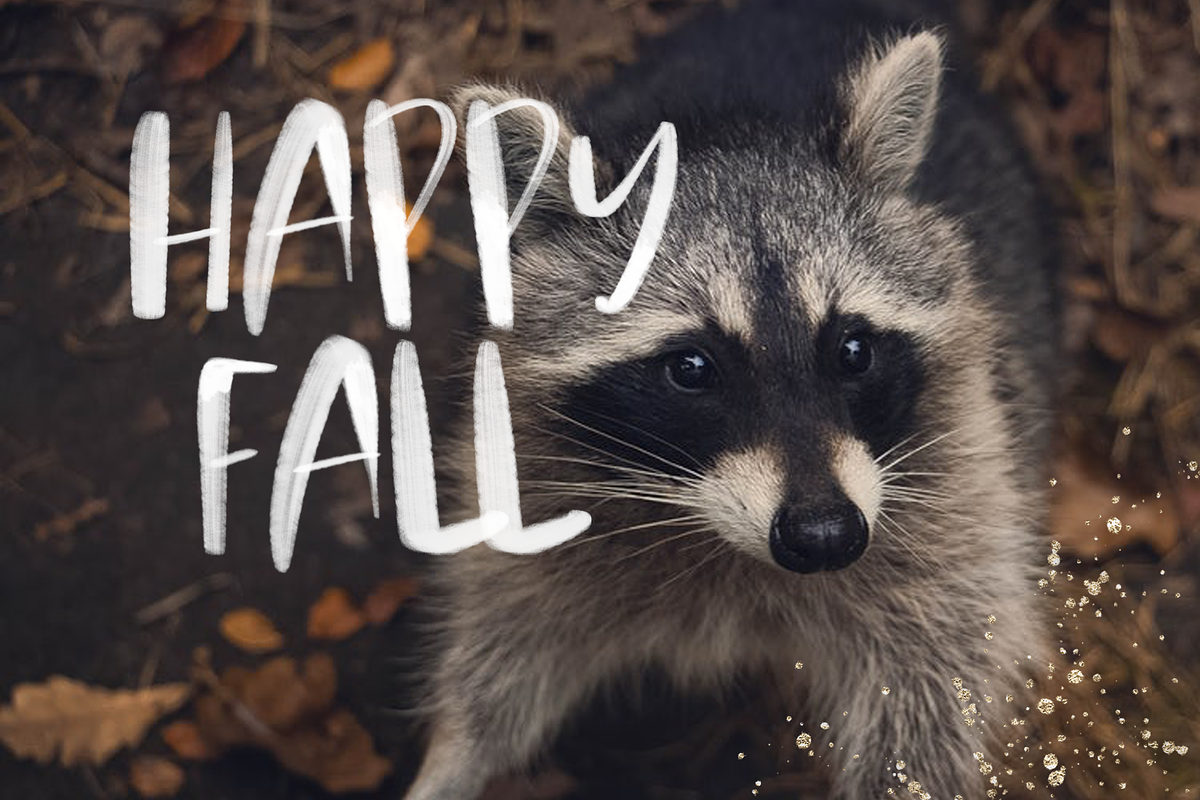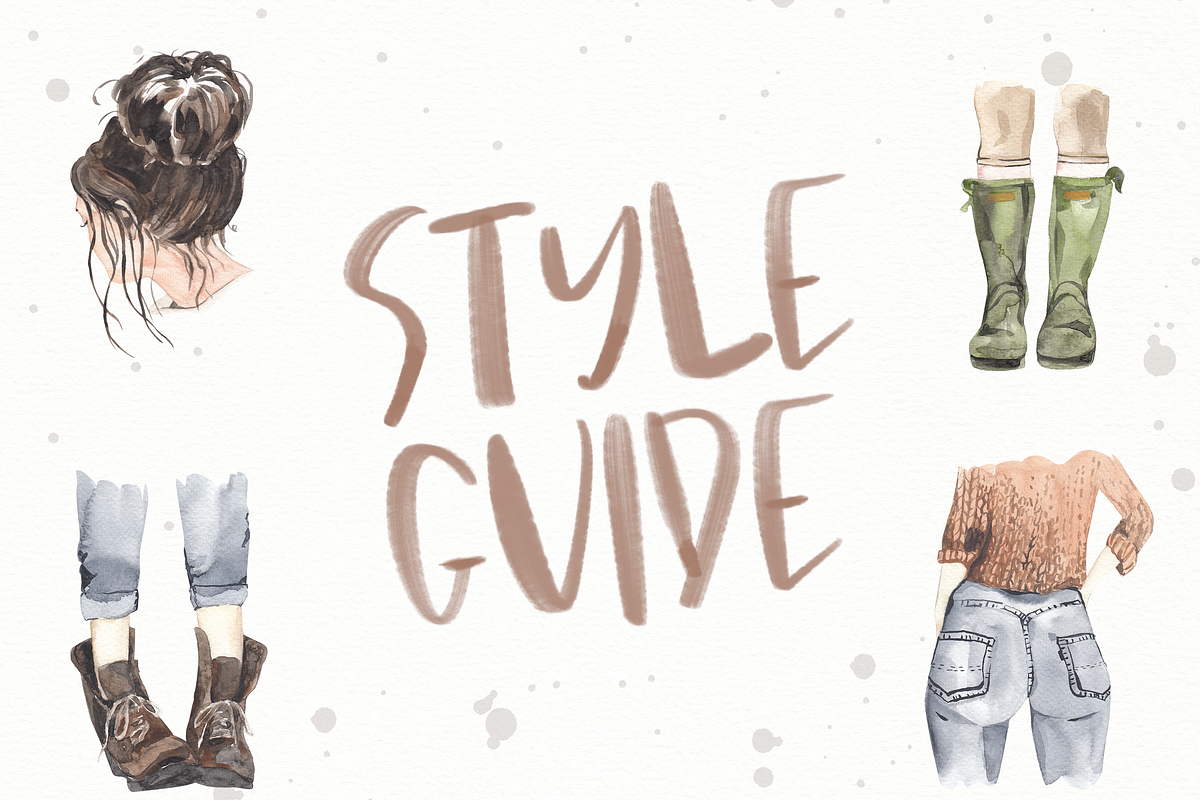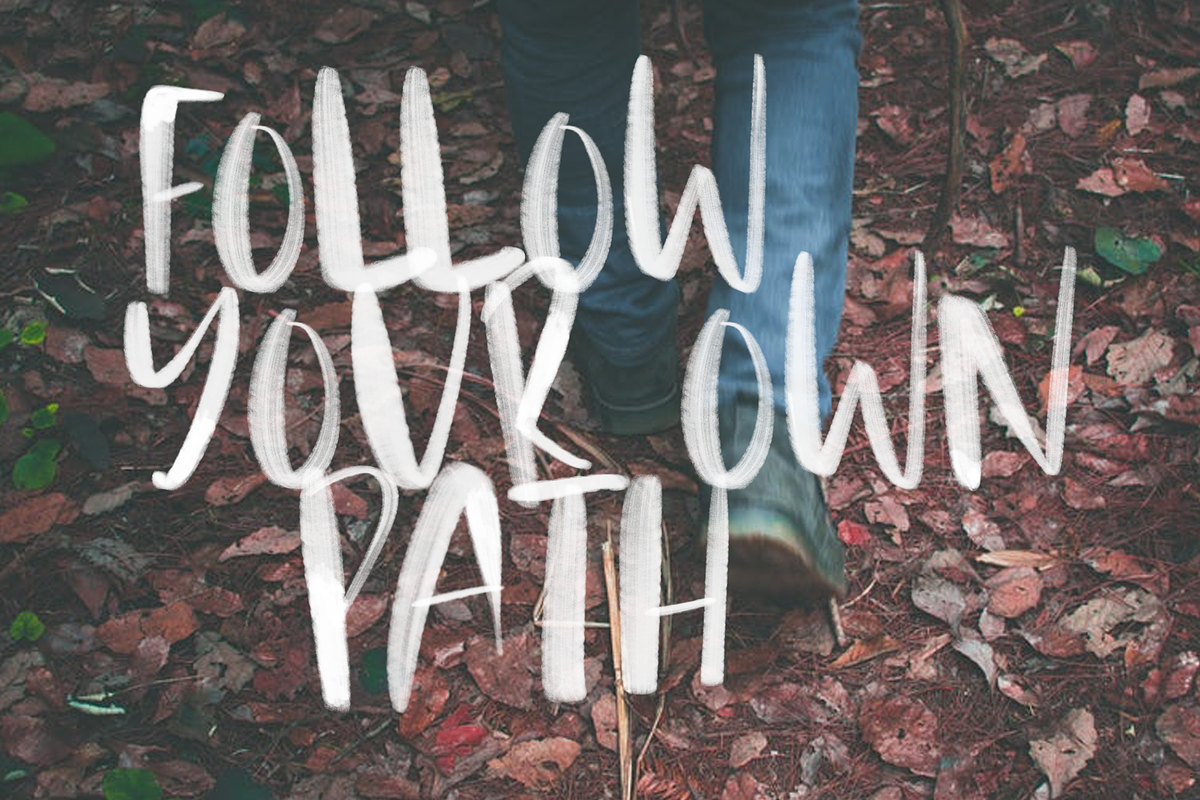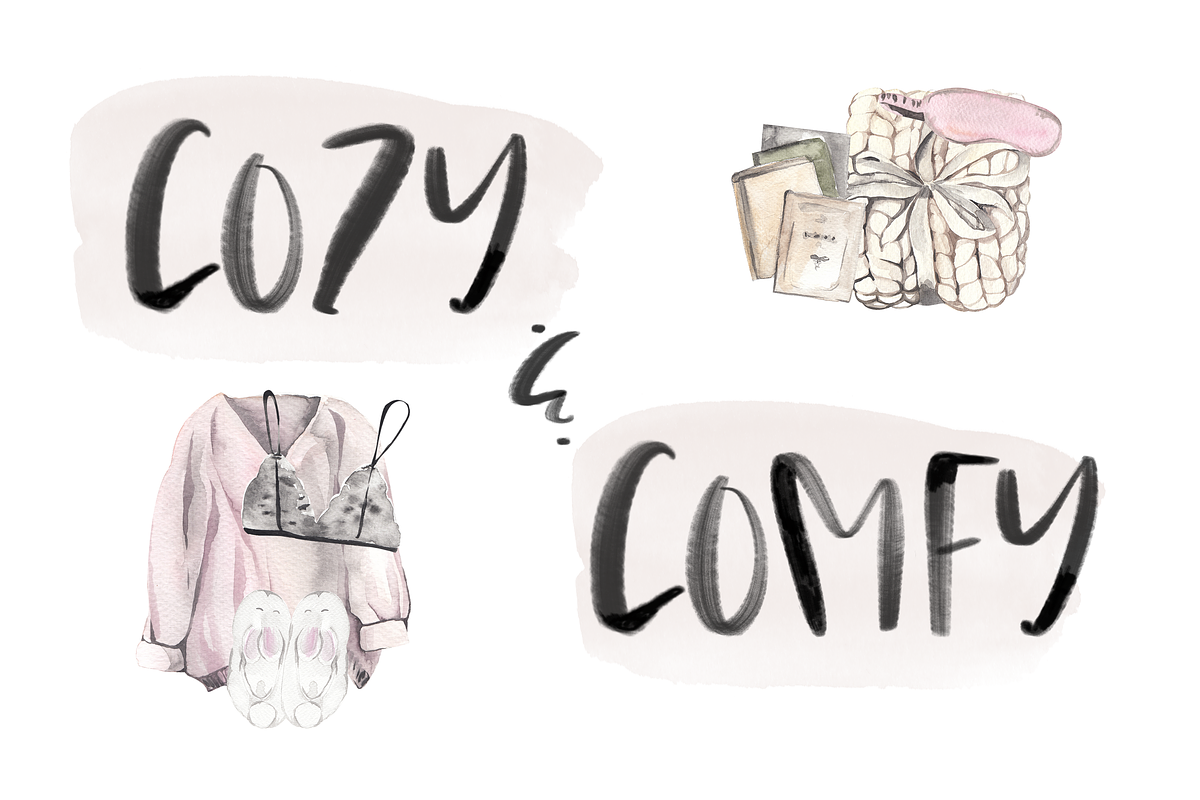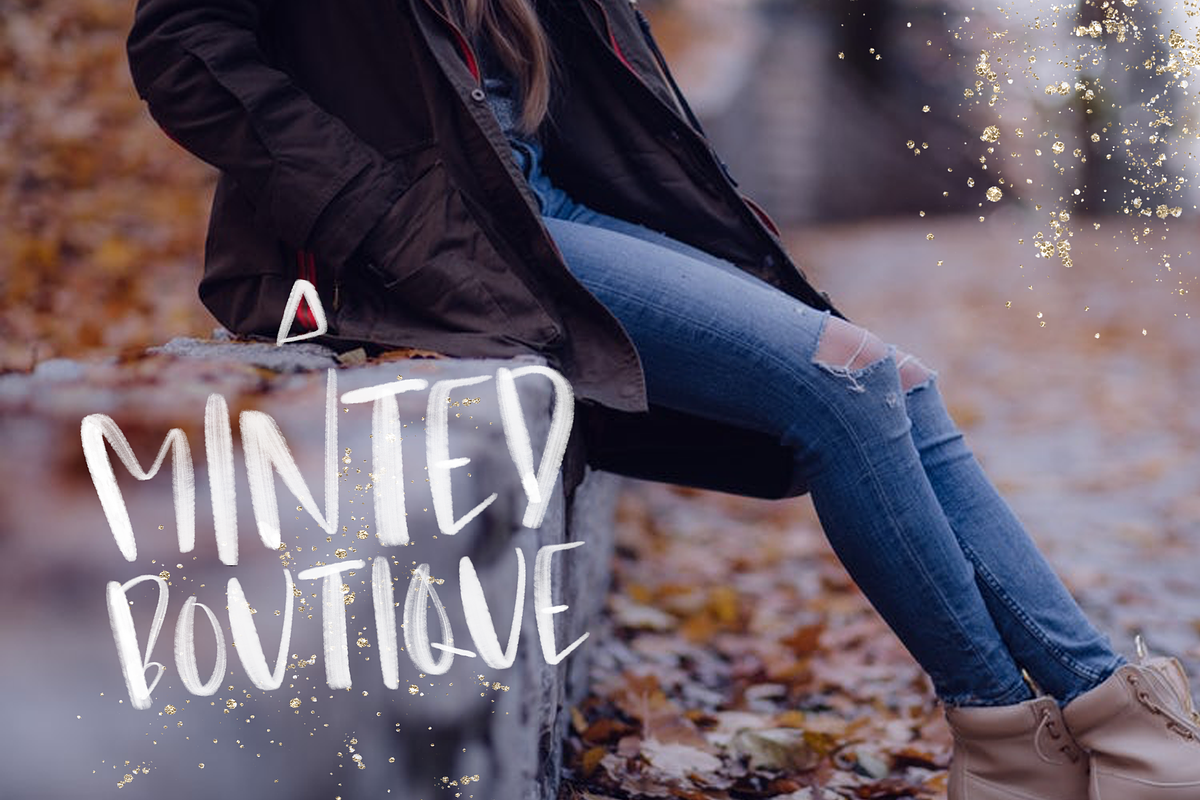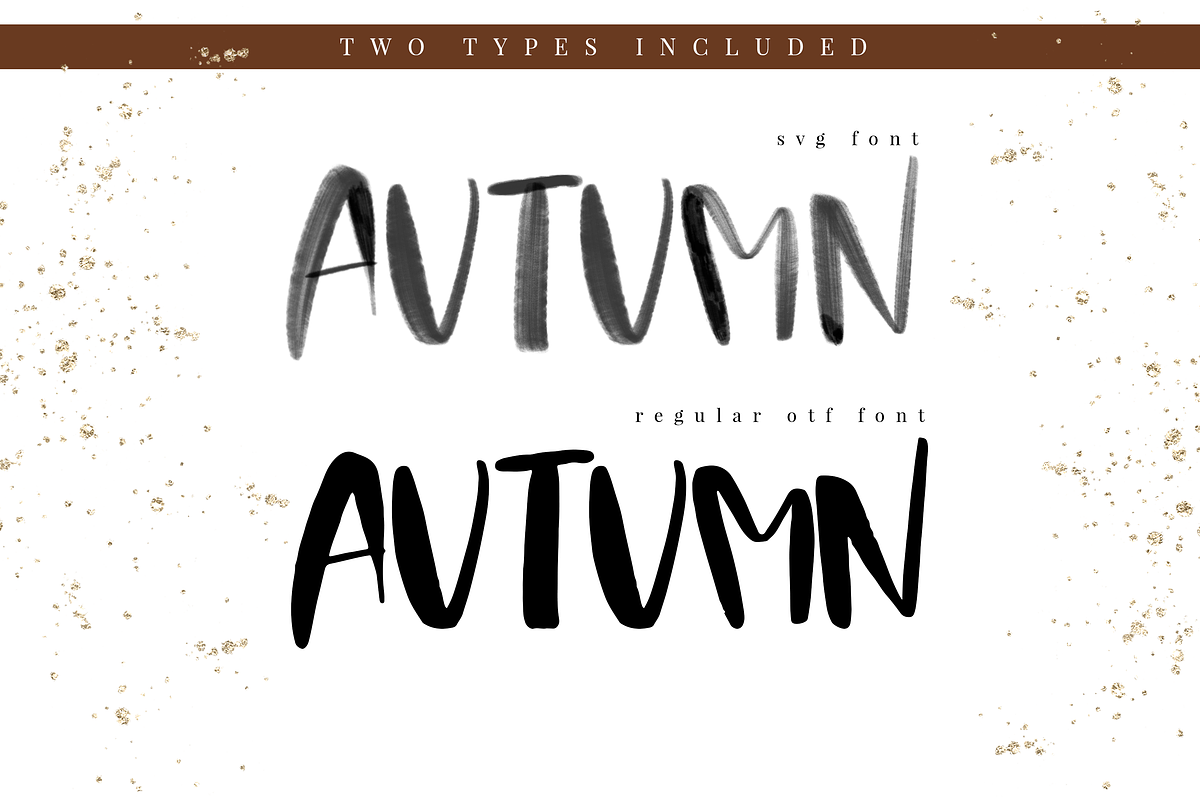
Autumn Collection - SVG + OTF font
Autumn Collection is a handwritten all caps font.
Each letter has been drawn by hand keeping the untouched texture for the SVG font. If you are unable to access SVG fonts, a regular style of Autumn Collection has been included with this purchase!
Autumn Collection is perfect for quotes, headings, blogs, logos, brandings, invitations and more!